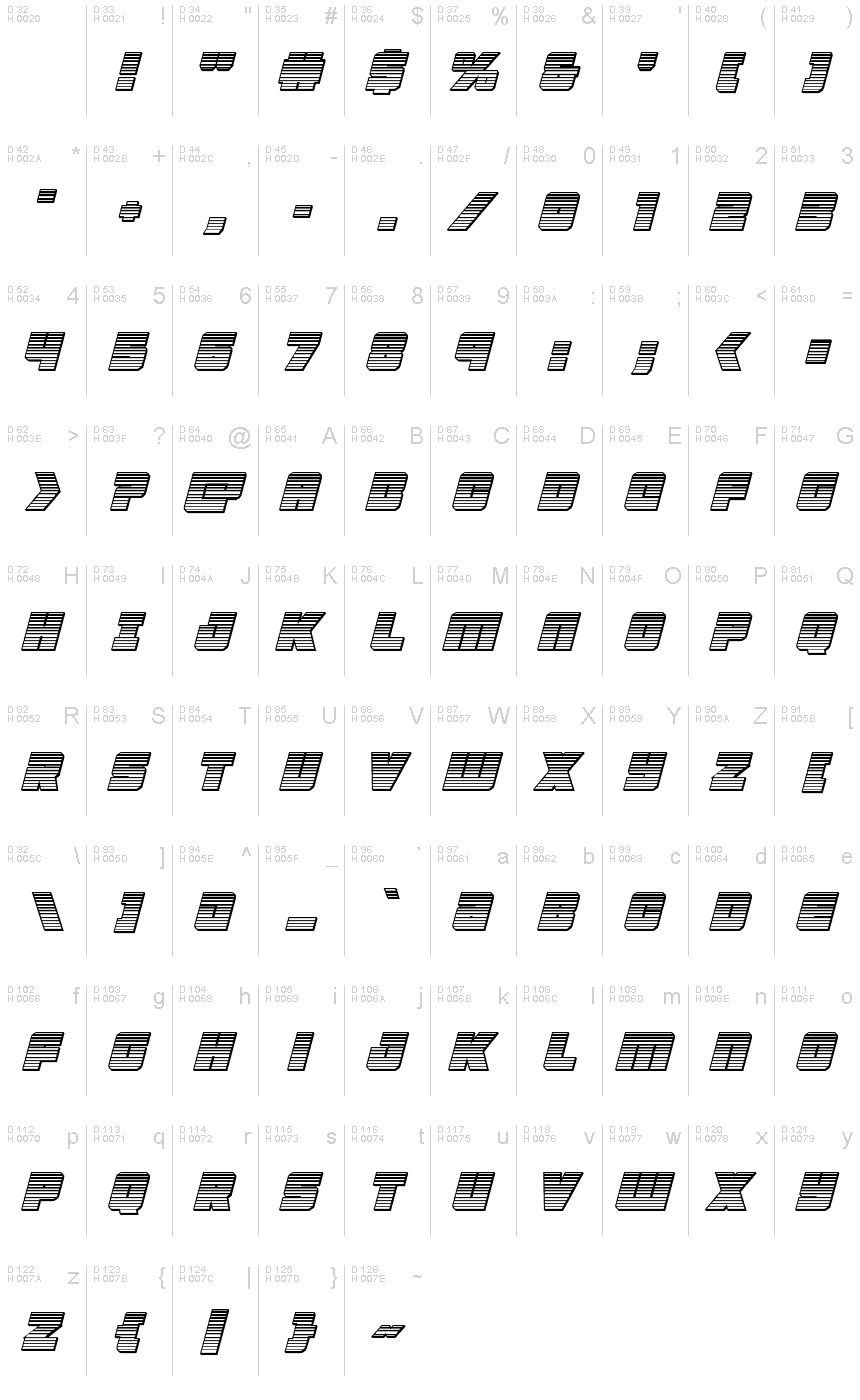
4ce Chrome Italic
4ce Chrome Italic is a cutting-edge display font designed by Iconian Fonts. With its techno-inspired chrome effect and extra-bold weight, this font is perfect for projects that require a bold and futuristic look. Its semi-expanded width adds a touch of uniqueness to any design, making it suitable for various creative endeavors such as website headers, album covers, or even movie titles. Whether you're looking to create an eye-catching logo or add some flair to your social media posts, 4ce Chrome Italic will give your project that wow factor it needs to stand out from the crowd.